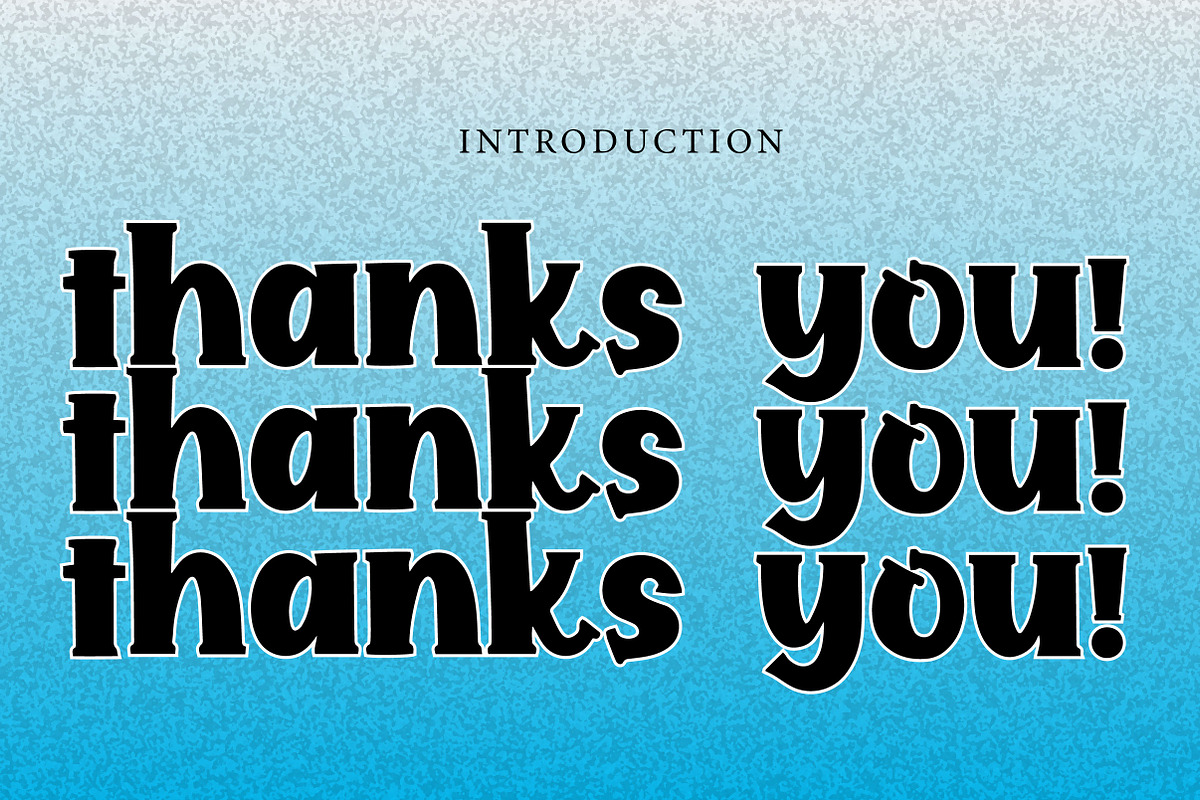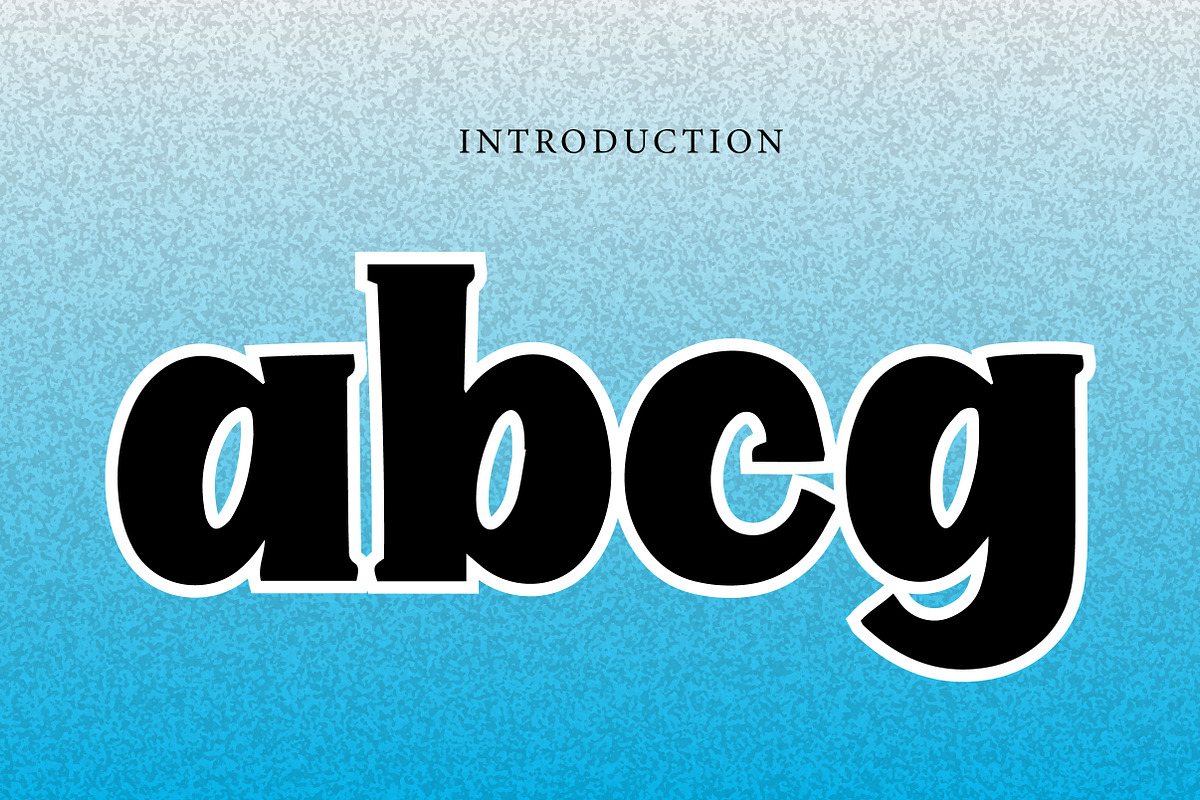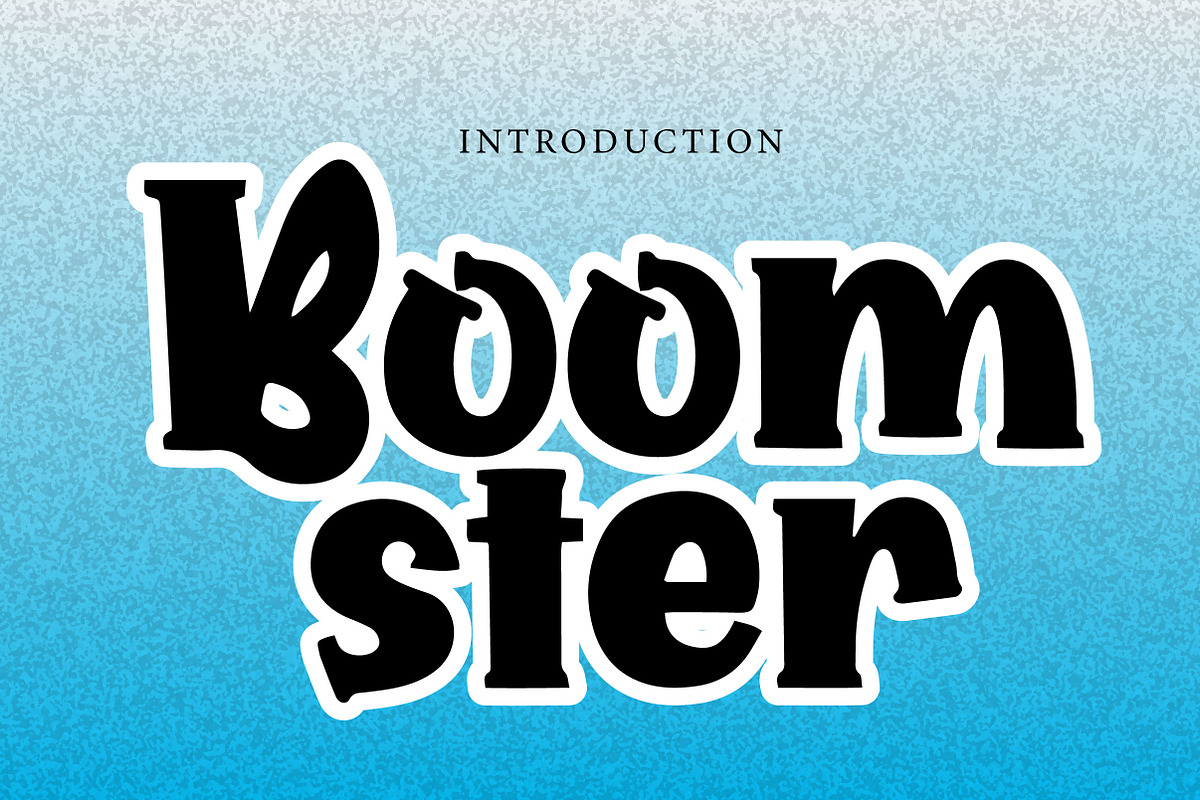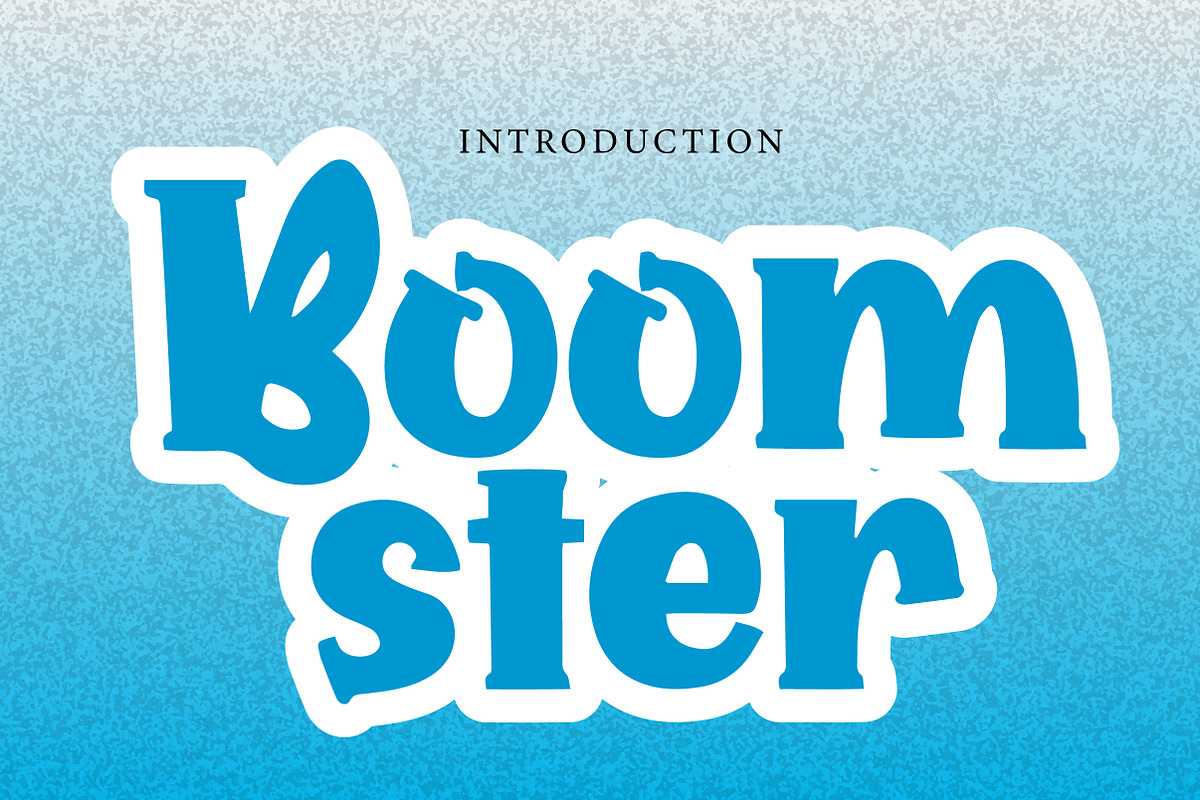
Boomster
Boomster – Bold Funky Display Font
Boomster is a bold, playful, and funky display font with a strong retro character, perfect for posters, branding, packaging, kids designs, and standout creative projects.
Boomster is a bold and energetic display font designed to bring fun, impact, and personality into your designs. With its chunky shapes, playful curves, and slightly decorative letter details, this font creates a lively and attention-grabbing look that feels both retro-inspired and modern.
Its strong visual style makes Boomster perfect for projects that need a bold and memorable presence. Whether you are creating posters, branding, product packaging, kids-themed graphics, social media content, merchandise, or eye-catching logo concepts, this font helps your typography stand out with confidence and charm.
The heavy structure keeps your text powerful and readable, while the quirky letterforms add a unique artistic touch. Suitable for both print and digital use, Boomster is a great choice for designers who want a font that feels expressive, fun, and full of character.